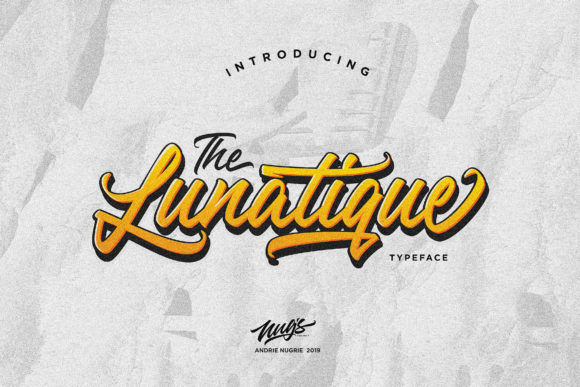
Welcome to the world of The Lunatique Font, where creativity dances on the tip of your cursor. This captivating script font, handcrafted by the talented Andrie Nugrie, is a symphony of style and energy, ready to transform your designs into captivating masterpieces.
The Lunatique Font is not just a collection of letters; it's an expression of individuality, a tool to unleash your imagination. Its dynamic strokes and energetic flow bring a sense of vibrancy and life to your projects. Whether you're crafting eye-catching titles, stylish signatures, or bold logotypes, The Lunatique Font will elevate your designs to new heights of creativity.
Picture your designs adorned with The Lunatique Font's enchanting characters. T-shirt designs come alive with a touch of playful elegance, letterheads exude professionalism with a hint of artistic flair, and signage commands attention with its striking presence. Unleash your inner artist and let The Lunatique Font guide you to design brilliance.
The versatility of The Lunatique Font knows no bounds. Newsletters, posters, and badges become captivating visual experiences, each letter carrying a story, each word painting a vivid picture. Its unique and striking style adds a touch of exclusivity to your creations, setting them apart from the ordinary and leaving a lasting impression on your audience.
With The Lunatique Font as your creative companion, you'll discover new avenues of expression, pushing the boundaries of design. It's the perfect font for those who dare to be different, who embrace originality, and who seek to create designs that resonate with audiences.
Join the ranks of creative visionaries who have embraced The Lunatique Font and transformed their designs into works of art. Let your imagination soar, let your creativity flow, and let The Lunatique Font guide you to design greatness. Embrace the dynamic energy of this remarkable font and watch as your designs bloom into captivating expressions of your unique style.